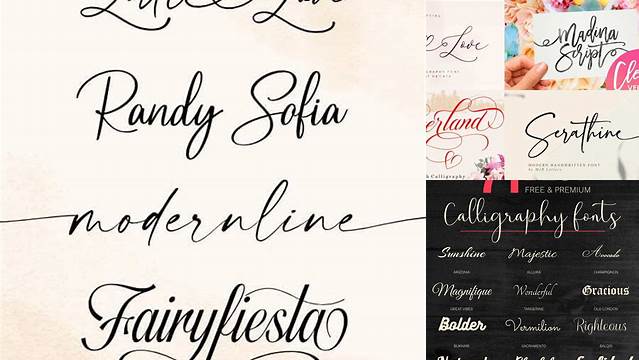
Best Calligraphy Fonts In Word: Your Ultimate Guide
Hey guys, are you ready to dive into the beautiful world of calligraphy? If you're anything like me, you've probably admired those elegant, flowing letters and thought, "Wow, I wish I could do that!" Well, the good news is, you don't necessarily need to be a master calligrapher to create stunning text. Thanks to the magic of technology, you can achieve fantastic results using calligraphy fonts right within Microsoft Word. This guide is your ultimate resource to discover the best calligraphy fonts in Word, explore how to use them, and unlock your inner creative genius. We'll cover everything from finding the perfect font to making your text look like it was written by a professional. So, grab your favorite beverage, get comfy, and let's get started on this exciting journey!
Unveiling the Top Calligraphy Fonts in Word: A Curated Selection
When it comes to the best calligraphy fonts in Word, the choices can feel a little overwhelming, right? Don't worry; I've done the legwork for you! I've handpicked some of the most popular and visually appealing calligraphy fonts that are readily available in Word or easily downloadable. We're talking about fonts that capture the essence of traditional calligraphy while offering modern versatility. This curated selection considers factors like readability, style, and overall aesthetic appeal. You'll discover fonts perfect for invitations, greeting cards, social media graphics, and any project where you want to add a touch of elegance and personality. Remember, the ideal font depends on the specific project and the message you want to convey. This list provides a starting point for your creative explorations. Each font brings its unique character to the table. From classic scripts that evoke a sense of timelessness to more contemporary options that embrace modern trends, you'll find something to match your vision. Let's take a closer look at some of these gems.
1. Dancing Script: The Playful Elegance
Dancing Script is like the bubbly friend everyone loves. This font is known for its informal and slightly playful style. Its curves and connections make it ideal for projects that require a touch of friendliness and a handmade feel. The best part? It's often available by default in Word! This means you can start using it right away. Dancing Script works well for wedding invitations, birthday cards, and social media posts. Its casual elegance adds a personal touch that's hard to beat. It's also a great option for beginners because it's relatively easy to read, even in smaller sizes. Consider using it for headings, quotes, or short paragraphs where you want to inject personality. Remember that the success of a font depends on its context. Dancing Script shines when used thoughtfully, complementing your overall design, not competing with it.
2. Brush Script MT: The Classic Choice
Brush Script MT is a timeless favorite and another font you might find pre-installed in Word. As the name suggests, it mimics the look of a brush stroke, offering a natural and fluid feel. Its bold strokes and subtle imperfections make it ideal for projects that require a touch of sophistication. Brush Script MT is fantastic for invitations, logos, and headlines. Its inherent elegance adds a touch of class without being overly formal. Many designers and creatives appreciate the balance that this font achieves between readability and artistic expression. It is versatile enough to work in various contexts, from vintage-inspired designs to modern branding materials. You'll find that Brush Script MT brings a sense of warmth and authenticity to your text. It's a great font for creating a sense of intimacy, making your message feel personal and engaging. When using Brush Script MT, experiment with different sizes and colors to find the perfect harmony with your project's overall aesthetic.
3. Great Vibes: The Vintage Charm
Great Vibes is a beautiful script font that captures the spirit of vintage calligraphy. Its flowing lines and graceful curves evoke a sense of nostalgia and romance. It's a perfect choice for projects where you want to add a touch of old-world charm. This font is an excellent option for wedding invitations, branding for businesses with a classic aesthetic, and creating visually stunning quotes. Great Vibes exudes elegance and sophistication, making your text stand out. Its delicate strokes and subtle details create an impression of handcrafted quality, adding a personal touch to your designs. Great Vibes is often a popular choice because it is both beautiful and versatile, working well in various applications. Always consider your project's overall context when choosing this font. Think about the message you want to convey and the visual style you want to achieve. Great Vibes provides an excellent base for building a memorable and impressive design.
4. Sacramento: The Clean and Modern Look
Sacramento offers a clean and modern take on calligraphy. Its elegant lines and slightly condensed form give it a contemporary feel. It's a fantastic choice if you're looking for a font that's both stylish and easy to read. It offers a modern approach to classic calligraphy. It's very suitable for projects requiring a touch of sophistication without being overly formal. Sacramento is a great option for branding, headings, and creating a polished look. Its simplicity and readability make it a versatile choice for a wide range of design applications. Sacramento's design has a crisp look, allowing it to integrate well with various design aesthetics. It allows your text to shine without being overshadowed by excessive ornamentation. You can easily use Sacramento to create eye-catching designs. You'll find that Sacramento strikes a perfect balance between style and functionality.